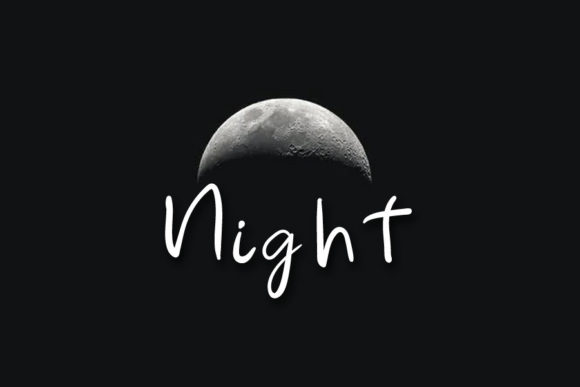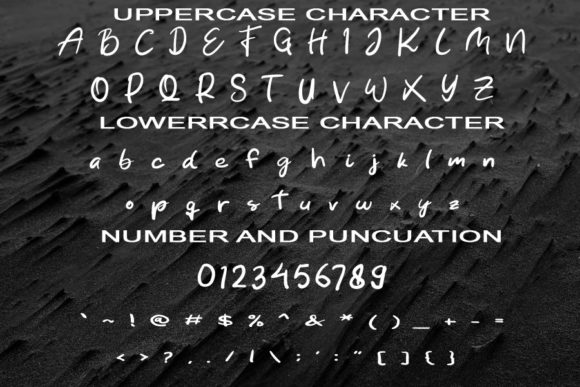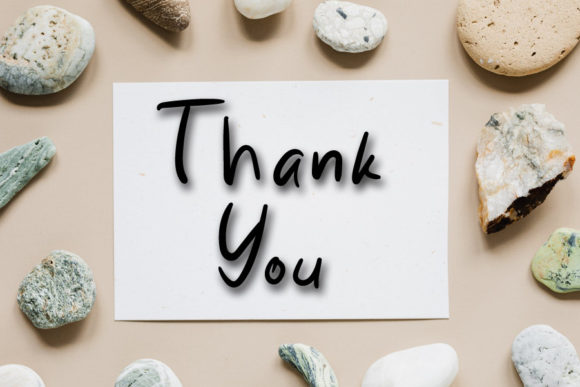
About Simple Signature Font
Simple Signature is a simple, clean and cute handwritten font. This adaptable font will look great on a variety of design ideas. It will add a fun and friendly touch to each of your projects!